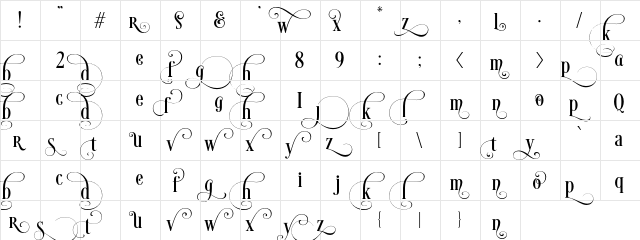
Desire Lowercase 2
| Foundry | Charles Borges de Oliveira |
| Designer | Charles Borges de Oliveira |
Design Context for Desire Lowercase Typeface
Desire Lowercase is a composed and adaptable typeface that performs quietly and consistently across a wide range of design contexts.